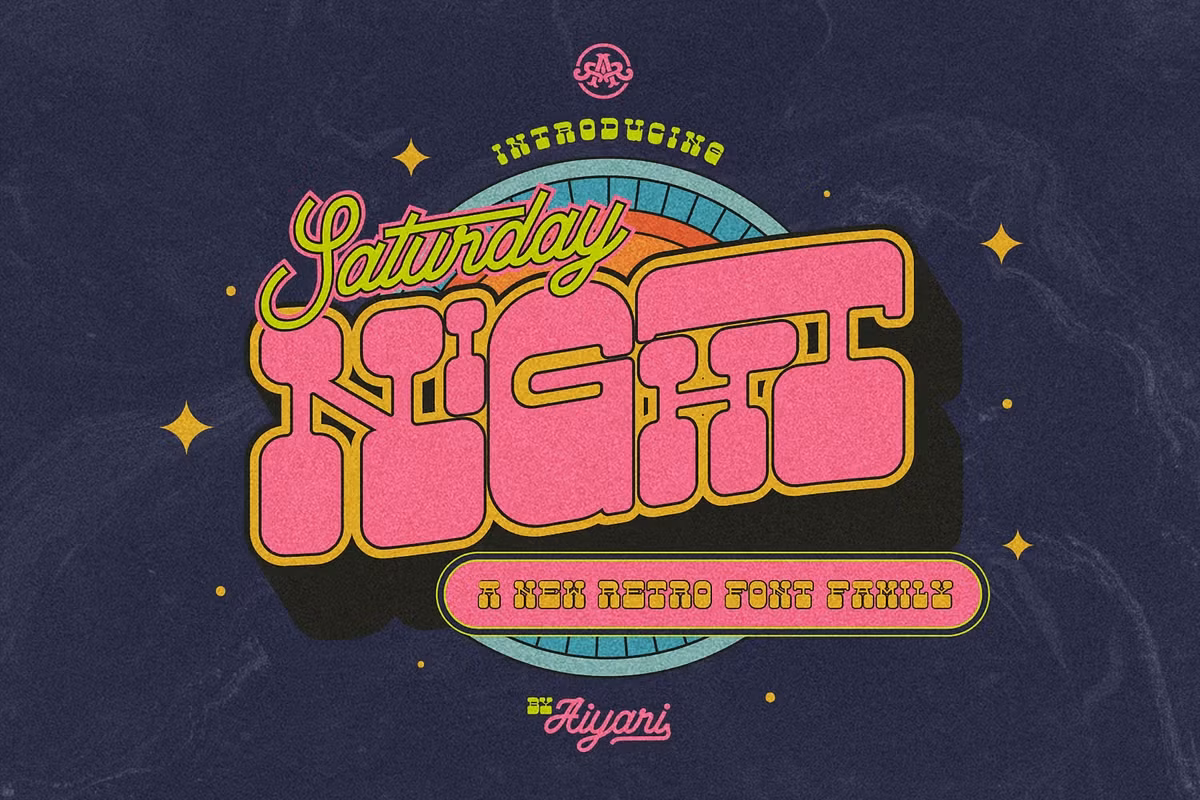
Saturday Night Font Family Free Download
Saturday Night Font Family Free Download is a bold and expressive typeface collection inspired by retro nightlife vibes and vintage signage. Perfect for posters, branding, event promotions, and music-themed designs, this font family delivers strong personality with a nostalgic twist. Please note that you must purchase this font for commercial use, but it is available as a free download for testing purposes. Turn up the energy in your next project with Saturday Night Font Family Free Download and bring that classic weekend spirit to life through stylish, eye-catching typography.